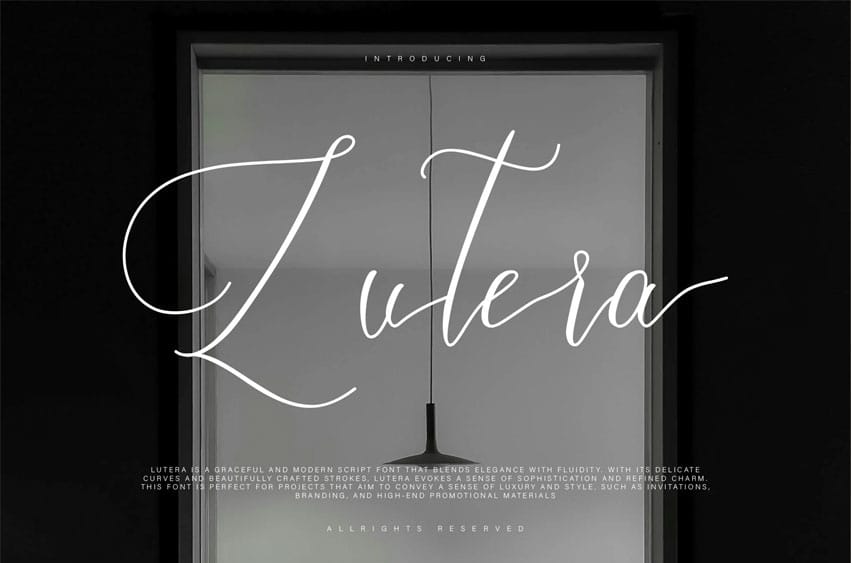
Lutera Font is a graceful and modern script font that blends elegance with fluidity. With its delicate curves and beautifully crafted strokes, Lutera evokes a sense of sophistication and refined charm.
This font is perfect for projects that aim to convey a sense of luxury and style, such as invitations, branding, and high-end promotional materials.